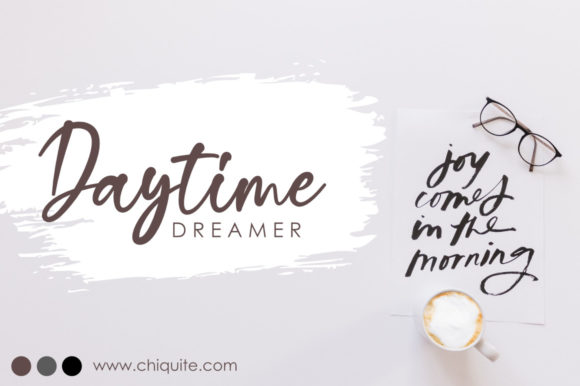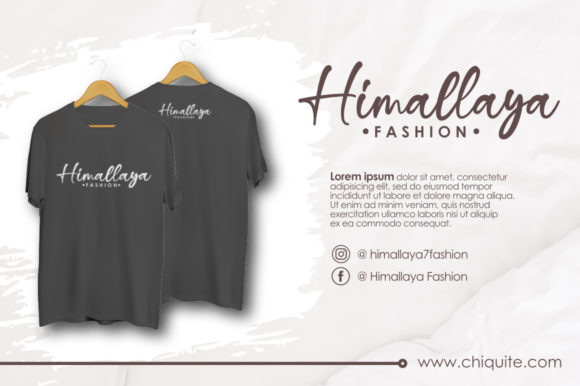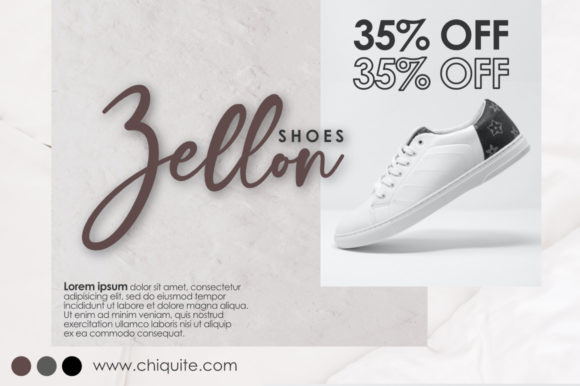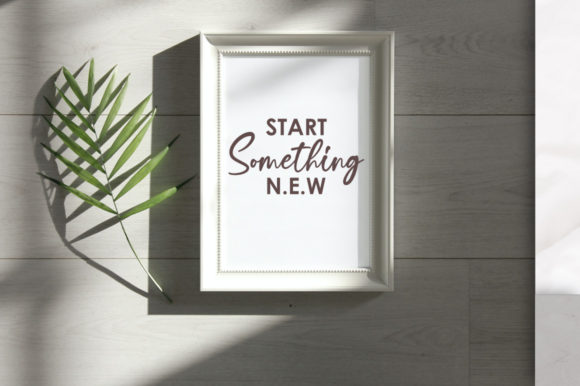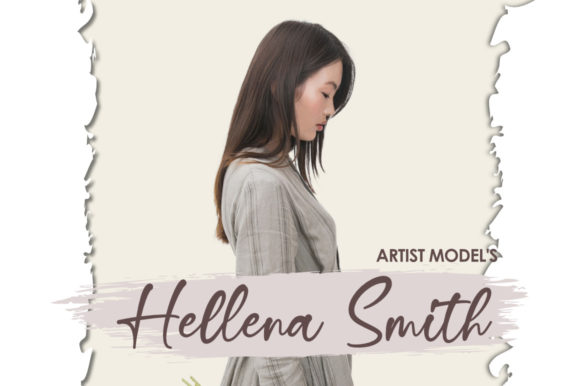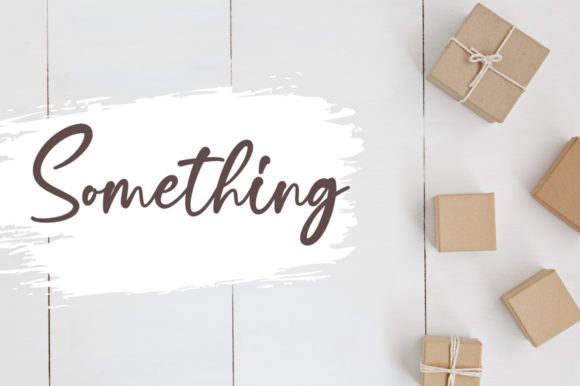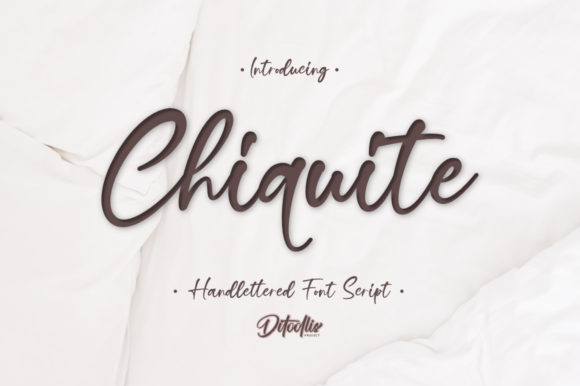
Introducing Chiquite Font: The Playful Script Font That Brings Joy to Your Designs
Are you tired of using the same old fonts in your designs? Look no further than Chiquite, a lovely script font that is sure to add a touch of whimsy and playfulness to your creations. With its charming, dancing characters, Chiquite is the perfect addition to any design project that needs a bit of personality.
What Makes Chiquite Font So Special?
Chiquite is a unique and eye-catching script font that features characters that seem to dance along the baseline. This playful and charming effect is sure to make your designs stand out from the crowd. Whether you’re working on a branding project, a craft project, or just want to add some personality to your digital creations, Chiquite is the perfect choice.
One of the things that sets Chiquite apart from other script fonts is its sense of movement and energy. The characters in this font seem to leap and twirl across the page, giving your designs a sense of joy and playfulness that is hard to resist. Whether you’re looking to create a fun and youthful brand identity or simply want to add some visual interest to your designs, Chiquite is an excellent choice.
Uses for Chiquite Font
- Branding and Logo Design: Use Chiquite to create a fun and playful brand identity that will help your business stand out from the competition.
- Crafting and Scrapbooking: Add a personal touch to your craft projects with Chiquite. This font is perfect for titles, headings, and other decorative elements.
- Digital Design: Use Chiquite to add some personality to your digital creations, such as social media graphics, blog posts, and more.
- Wedding and Party Decor: Chiquite is a great choice for wedding and party decor, such as invitations, signs, and other decorative elements.
Tips for Using Chiquite Font
- Use it sparingly: While Chiquite is a beautiful font, it can be overwhelming if used too much. Use it sparingly to add emphasis and visual interest to your designs.
- Pair it with a simple font: Chiquite pairs well with simple, sans-serif fonts. Try pairing it with a font like Arial or Helvetica to create a nice contrast.
- Experiment with colors: Chiquite looks great in a variety of colors, so don’t be afraid to experiment and find the perfect hue for your design.
In conclusion, Chiquite is a unique and charming script font that is sure to add a touch of playfulness and personality to your designs. With its dancing characters and sense of movement, Chiquite is the perfect choice for designers and crafters looking to create fun and youthful designs. Whether you’re working on a branding project, a craft project, or just want to add some visual interest to your digital creations, Chiquite is an excellent choice.